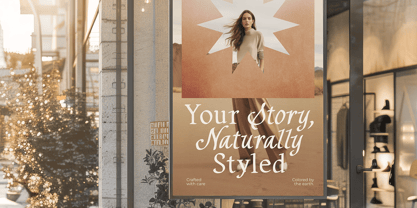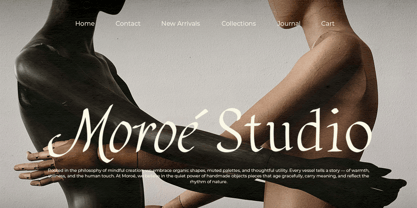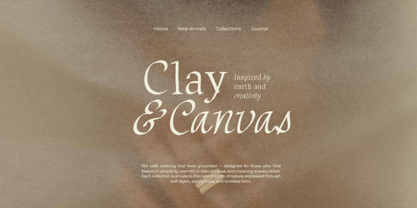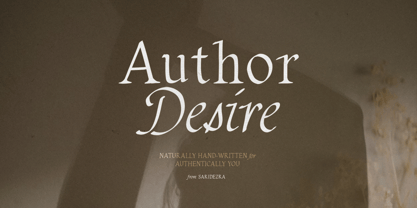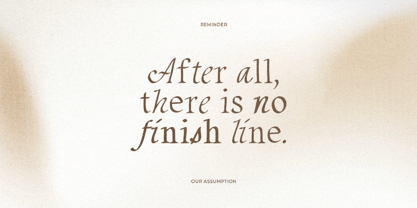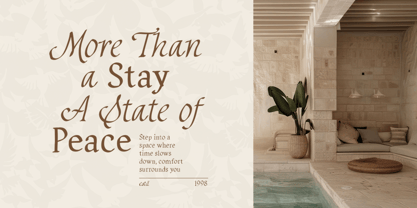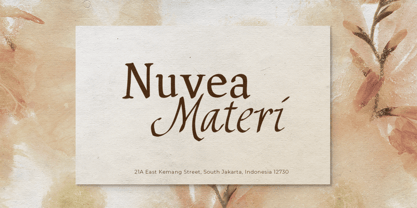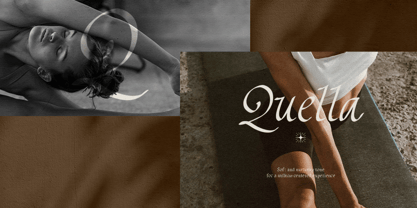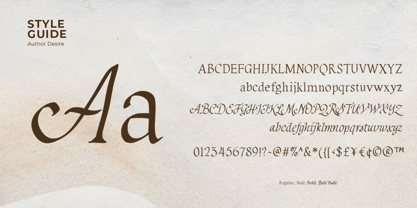
Author Desire
by Sarid Ezra
The Author Desire Font Family was designed by Sarid Ezra and published by Sarid Ezra. Author Desire contains 4 styles and family package options.
Author Desire is a serif family that have natural and vintage looks. With 4 styles including regular, italic, bold, and bold italic version that you can choose for your stunning and naturally handmade project. You can also use this font for any purpose such as logotype, wedding invitations, and any design that needs vintage and old yet modern looks. This font also support multi language!